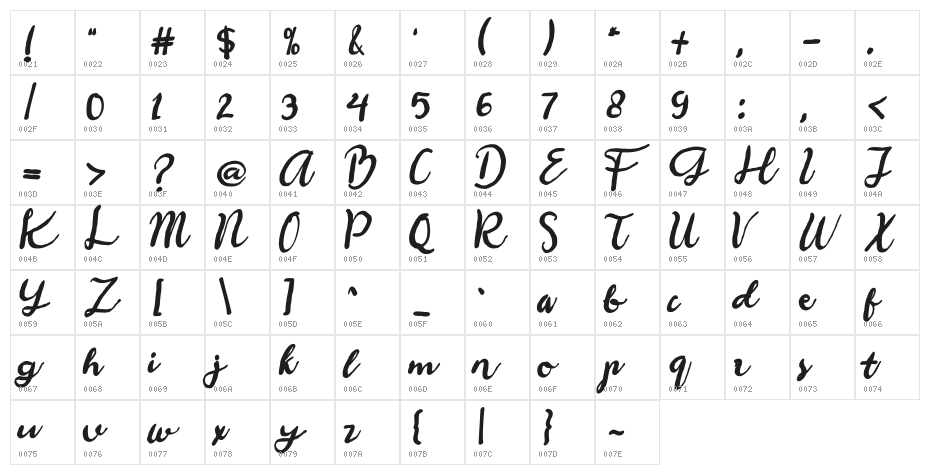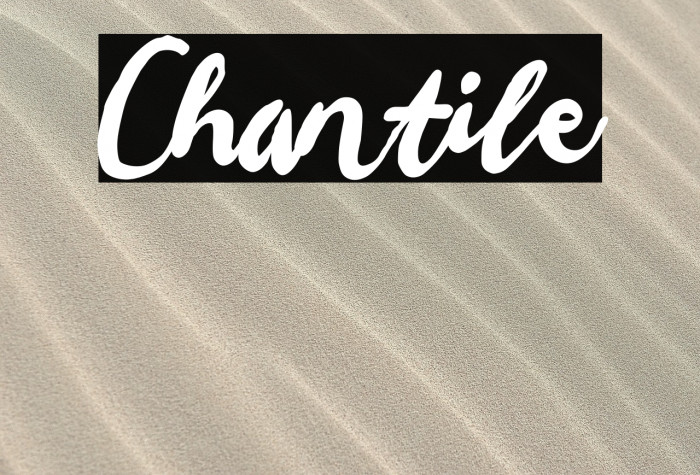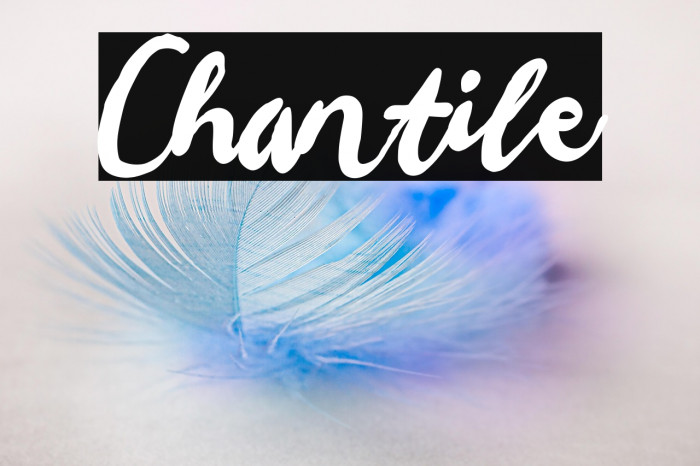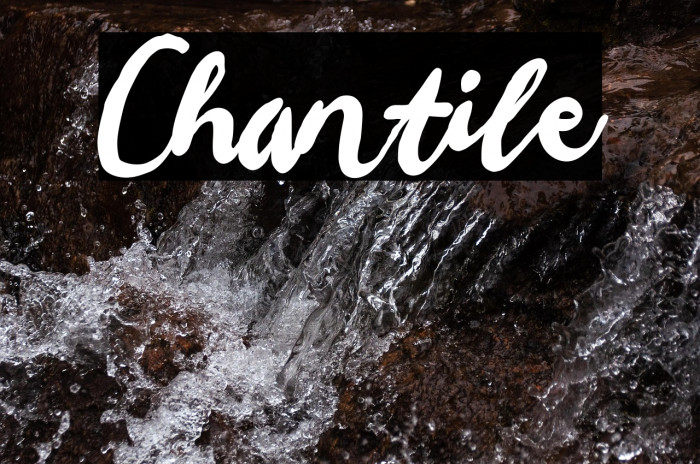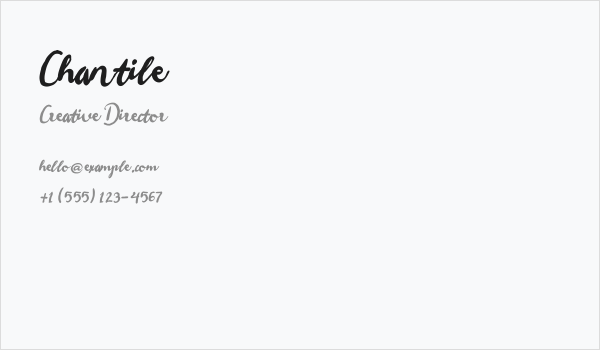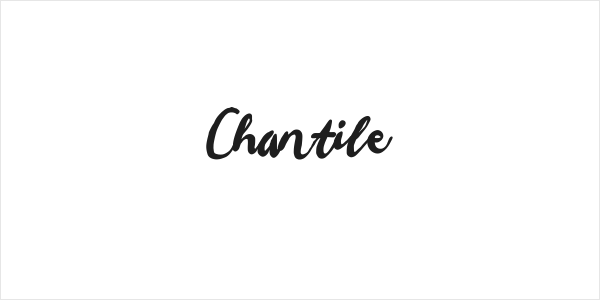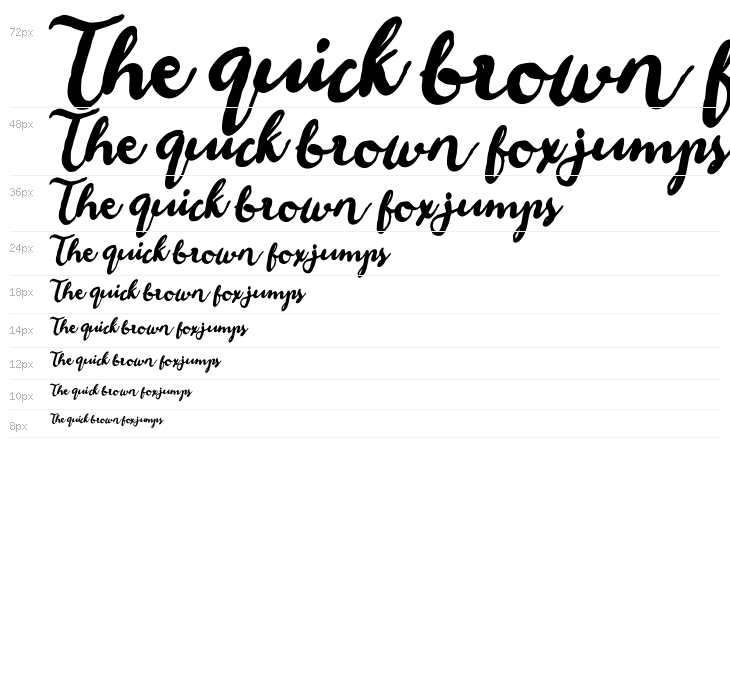
Chantile Font
Chantile Description
This font features a dynamic and flowing script style, characterized by its elegant, cursive letterforms. The strokes are bold and expressive, with a smooth, continuous flow that mimics natural handwriting. The uppercase letters are slightly more formal, while the lowercase letters exhibit a playful, casual flair. The numbers and special characters maintain the same fluidity, ensuring consistency across all elements. This font's design is both artistic and legible, making it suitable for various creative applications.